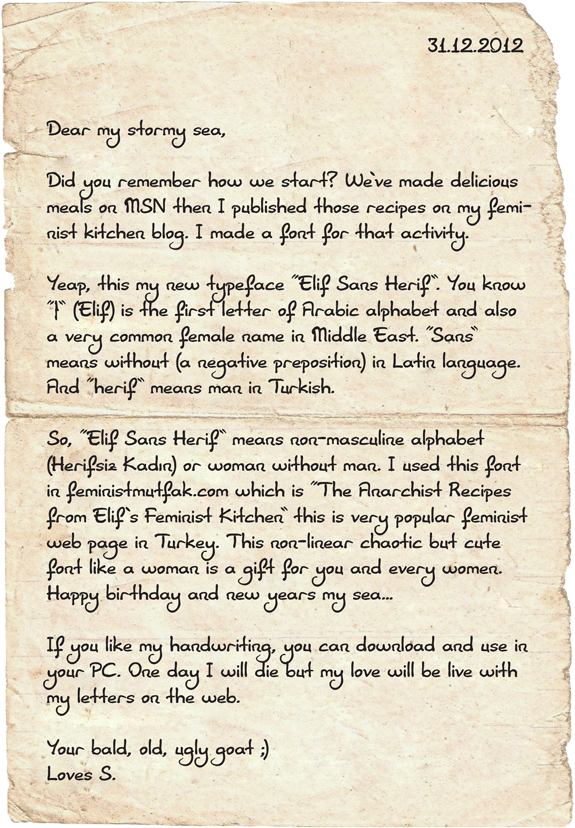
I feel that rigid, linear, and solid fonts are too masculine like arial or verdana. That’s why I want to create a natural, non-linear, but legible fat finger typeface like women. Yes, I inspired by my feminist activist friends in Turkey. I used this font in anarcho-feminist web page https://feministmutfak.com :) PS: It also includes Turkish letters. For commerical use please contact: http://serdara.com/iletisim Note: If you a problem with "oTo" letters in Photoshop please use "optical" instead of metrics. |